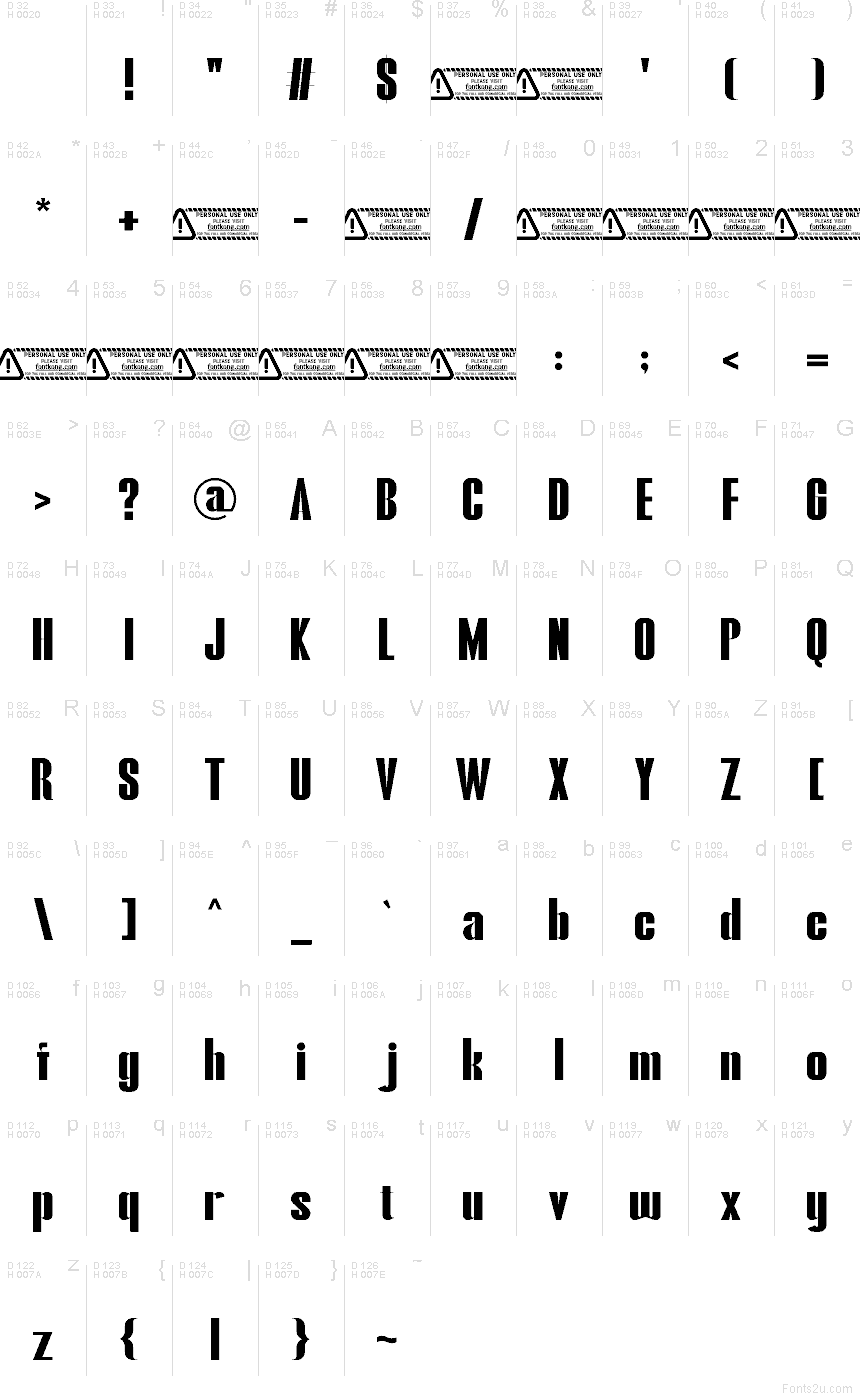
Cliffton
Cliffton font by Kong Font is a free sans serif typeface with a bold, blocky rhythm and unexpected curves that hook your eye. Its tall, compressed shapes, squared edges, and chunky strokes feel like retro poster lettering carved out of solid ink, while the quirky notches and cutouts keep it from ever feeling stiff. The result is a heavy, confident presence that reads fast but leaves a strong, slightly rebellious aftertaste.
Using Cliffton, this free font shines on loud headlines, logos, music and event posters, vintage-inspired branding, packaging, and bold social media graphics. The tight vertical build lets you stack words without wasting space, making short phrases punchy and compact. For longer copy, pair Cliffton with a simple geometric sans at smaller sizes to keep things readable while its distinctive forms handle the attention-grabbing moments.